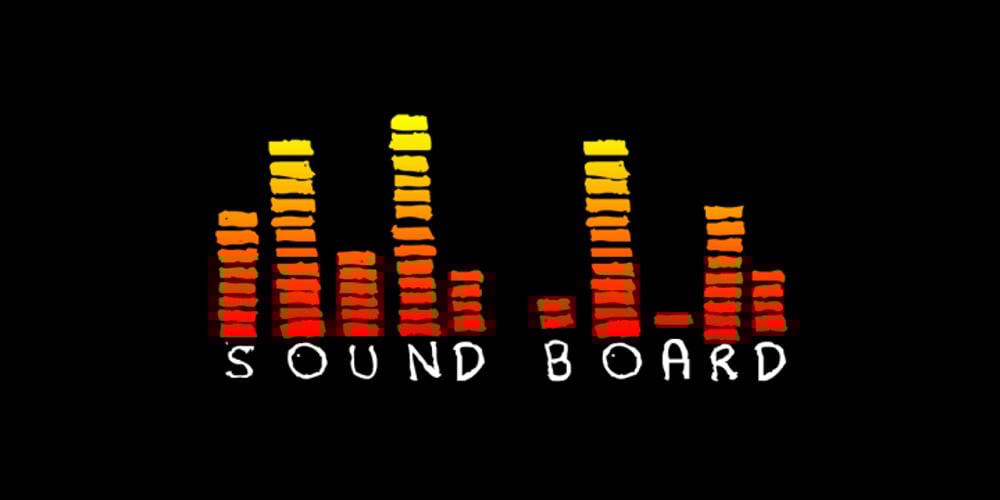
Sound Board Font Family was designed by Jesse Andrew Tilley and published by Jesse Tilley. Sound Board contains 1 styles and family package options. I felt an urge to create a font that used the bars seen in an equalizer; Sound Board is that font. If you’re going to use it, you will need to put the size up much more then a normal font, this font is very skinny and tall.